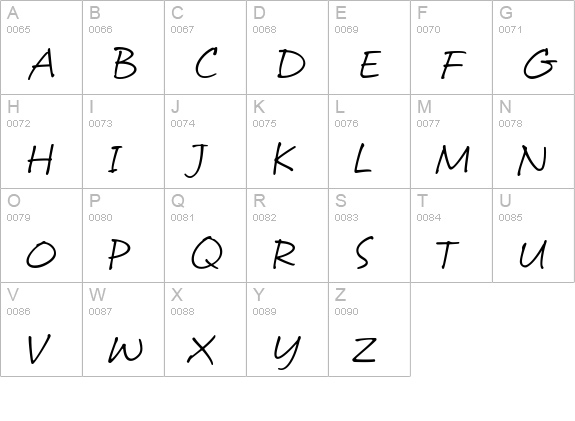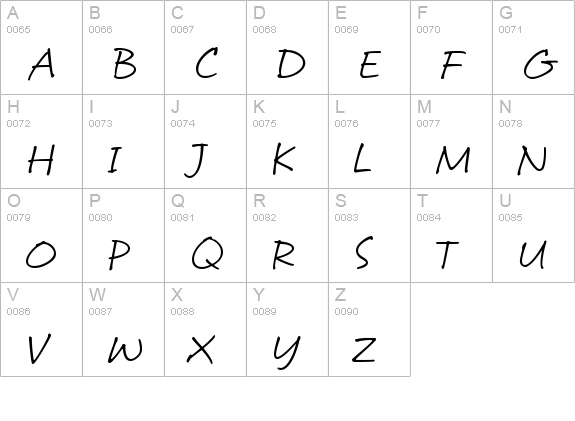
StarbabeHmk Font Details
StarbabeHmk font is a stunning typeface that exudes elegance and sophistication. With its sleek and stylish design, this font is sure to make a statement in any project. Whether you're designing a logo, creating a wedding invitation, or crafting a beautiful website, StarbabeHmk font will add a touch of class and sophistication. What sets StarbabeHmk font apart is not only its stunning design, but also the fact that it is available to download for free. That's right, you can enhance your designs with this incredible font without spending a dime. It's the perfect opportunity to add a touch of glamour to your projects without breaking the bank. StarbabeHmk font is designed with meticulous attention to detail, resulting in a flawless and polished look. Its smooth lines and perfectly balanced proportions make it a versatile typeface that can be used in a wide range of design projects. From headlines to body text, StarbabeHmk font will always make a lasting impression. To make things even better, StarbabeHmk font is freely available to download at FontsMarket.com. This means that you can easily access this incredible font and start using it in your projects right away. FontsMarket.com provides a user-friendly platform where you can explore a vast collection of fonts and download them with just a few clicks. So why wait? Download StarbabeHmk font today and let your creativity shine. With its timeless elegance and the convenience of being freely available, this font is a must-have for any designer or creative enthusiast. Don't miss out on the opportunity to elevate your designs with this exquisite typeface. Get StarbabeHmk font now and let your projects sparkle like never before.